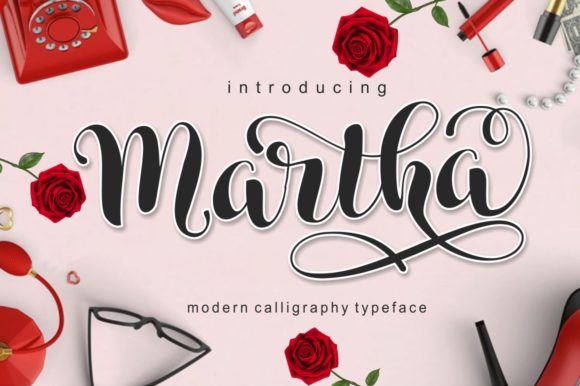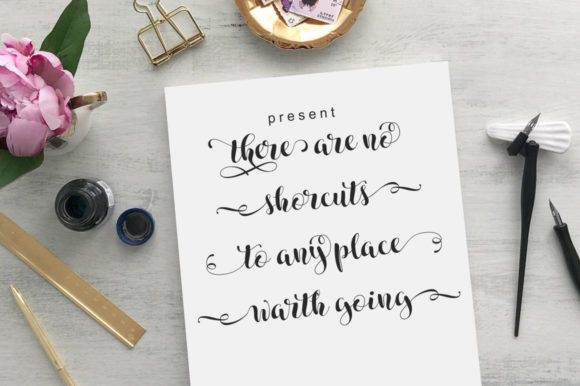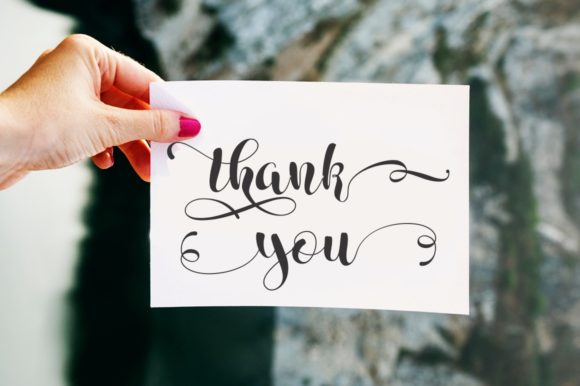
Martha Font
About Martha Font
Martha is a dreamy and romantic script font that embodies elegance and sophistication. With its classic yet fashionable design, this font has the ability to transform any design into a work of art. Whether you’re working on wedding invitations, branding materials, or any other creative project, Martha will add a touch of charm and beauty.
The script style of Martha exudes a sense of grace and fluidity. Each letter is carefully crafted with delicate curves and graceful strokes, creating an overall harmonious and elegant look. The font’s refined design makes it perfect for projects that require a touch of romance and sophistication.
One of the standout features of Martha is its versatility. It can be used in a variety of design contexts, from formal to informal, making it suitable for a wide range of projects. Whether you’re creating wedding invitations, love letters, or even stylish logos and branding materials, Martha will elevate your designs and give them a touch of timeless beauty.
Martha’s PUA encoding allows easy access to all of its glyphs and swashes, providing you with a wealth of creative options. You can effortlessly add decorative flourishes, swashes, and alternate letterforms to enhance the visual appeal of your designs and make them truly unique.
Additionally, Martha ensures readability and legibility, even in smaller sizes. Each letter is crafted with attention to detail, maintaining a balance between elegance and clarity. This ensures that your message is effectively conveyed to your audience, no matter the size or medium of your design.
The dreamy and romantic nature of Martha makes it a perfect choice for creating memorable and enchanting designs. Its timeless appeal and classic yet fashionable style give your projects a touch of sophistication and beauty. Whether you’re designing for weddings, special occasions, or simply want to add a touch of elegance to your creative work, Martha will make your designs shine.
In summary, Martha is a dreamy and romantic script font that brings a sense of elegance and sophistication to your designs. Its classic yet fashionable design, along with its PUA encoding for easy access to glyphs and swashes, allows you to create stunning and unique designs. With Martha, you can transform any project into a work of art that captures the hearts of your audience.